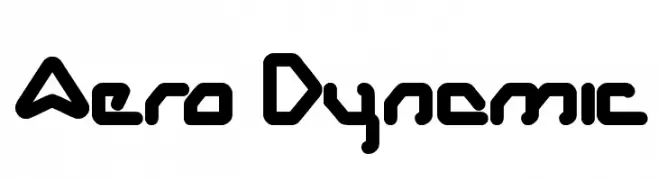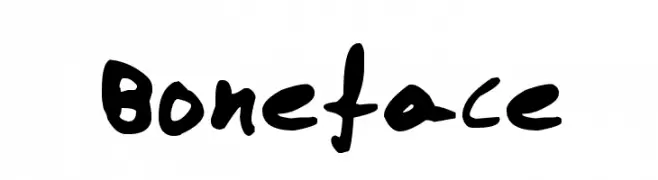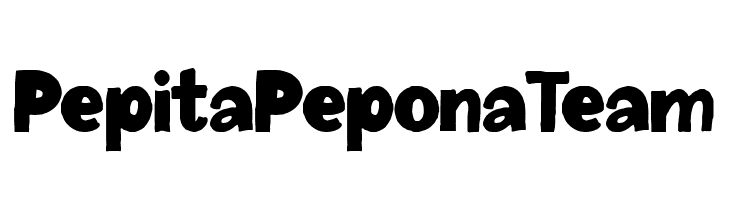
( Fonts by weknow - Wino S Kadir )
A futuristic, geometric font with bold, interconnected lines and angular shapes.
( Paul Lloyd Fonts )
A bold, modern font with a geometric style and strong presence.
( Fonts by Víctor Carbajo )
A casual, handwritten font with a playful and dynamic style.
( Fonts by Typeline Studio )
A playful, rounded font with smooth curves and a friendly appearance.
( Jef Triforce - Francisco Arellano - www.ixipcalli.com )
A modern sans-serif font with geometric shapes and uniform strokes.
( Fonts by Espen Morten Kvalheim - www.unbornchikken.com )
A bold, handwritten font with a casual and playful style.
A medium-weight, italic serif font with a classic and elegant style.
A playful, italic handwritten font with smooth strokes and moderate contrast.